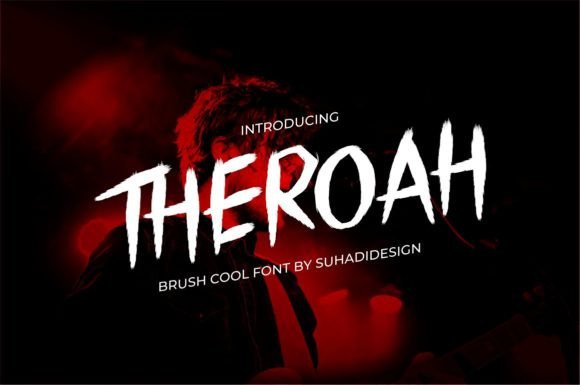
Welcome to the realm of Theroah, a font that epitomizes the spirit of horror in its rawest form. Theroah is not merely a font; it's a gateway to a world of darkness, mystery, and intrigue. Created by the ingenious mind of suhadidesign, Theroah has captivated the hearts of designers seeking to unleash their inner demons onto the world. Prepare to embark on a journey through the depths of your imagination and bring your darkest visions to life.
Visualize your horror book covers adorned with Theroah's menacing strokes, inviting readers to delve into a world of spine-tingling tales. The Theroah font is a masterful blend of elegance and terror, captivating readers from the very first glance. Its classy, easy-to-read style ensures that every letter becomes a haunting whisper, drawing readers deeper into the abyss of your story.
Theroah's versatility extends beyond book covers. Unleash its power in band contest posters, music album art, and movie titles, creating an atmosphere of mystery and anticipation that will leave audiences spellbound. Theroah is the ultimate choice for challenging designs, where imagination knows no bounds.